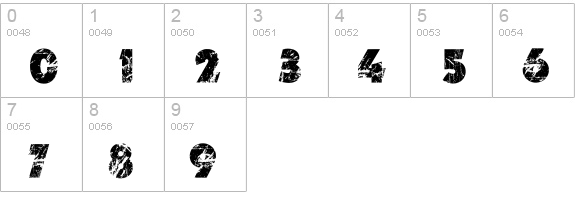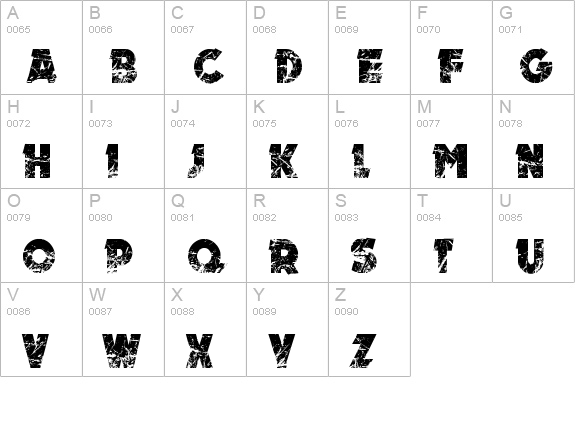
MOTOR Font Details
Introducing MOTOR font - a striking and powerful typeface that exudes the raw energy and dynamic spirit of the open road. This font is perfect for projects that require a bold and edgy aesthetic, capturing the essence of speed, strength, and adventure. With its strong, sturdy letterforms and distinct angular shapes, MOTOR font commands attention and adds a touch of rebelliousness to any design. Its sleek and modern style makes it versatile for a wide range of applications, from branding and logo design to posters, headlines, and website headers. But what sets MOTOR font apart is not just its eye-catching design, but also its accessibility. This font is freely available to download at FontsMarket.com, allowing designers and enthusiasts alike to unleash their creativity without any restrictions. Whether you're a professional designer working on a client project or a hobbyist looking to add a unique touch to your personal creations, MOTOR font offers the freedom to experiment and create without limitations. So, rev up your design projects and take them to new heights with MOTOR font. Download it for free at FontsMarket.com and let your imagination run wild as you explore the endless possibilities this font has to offer.